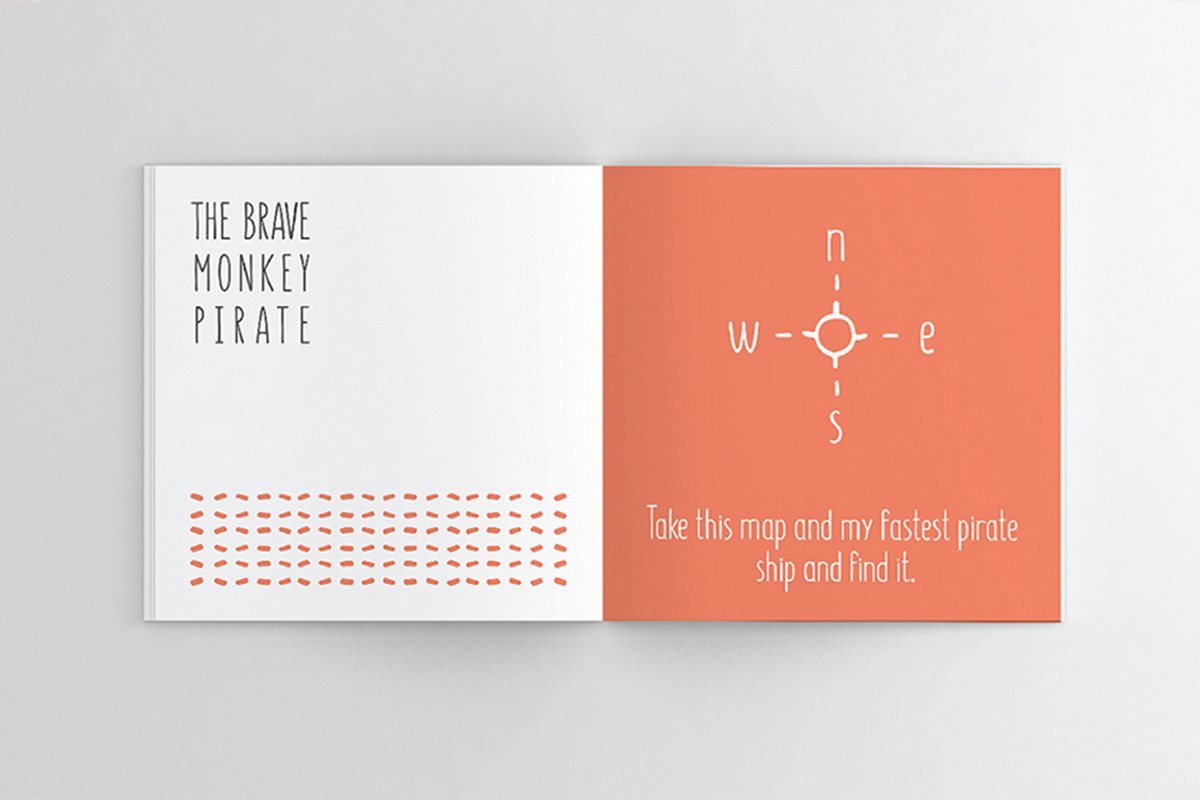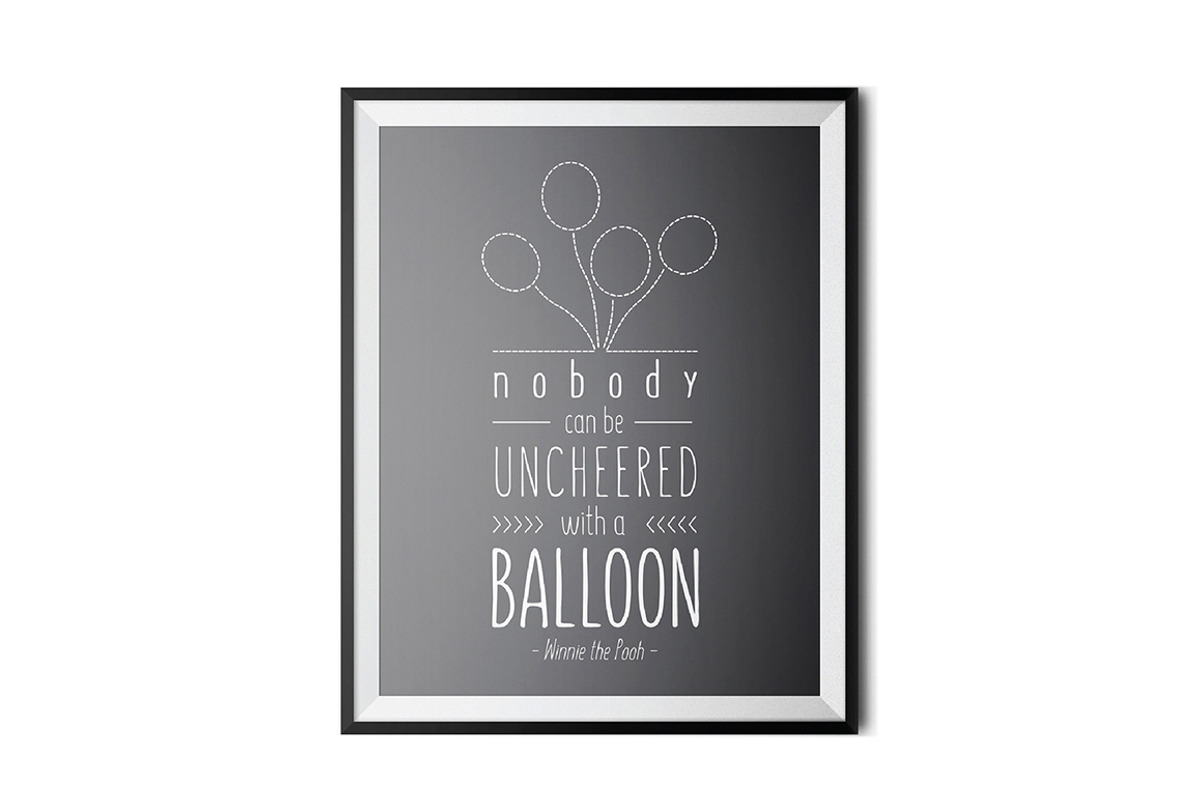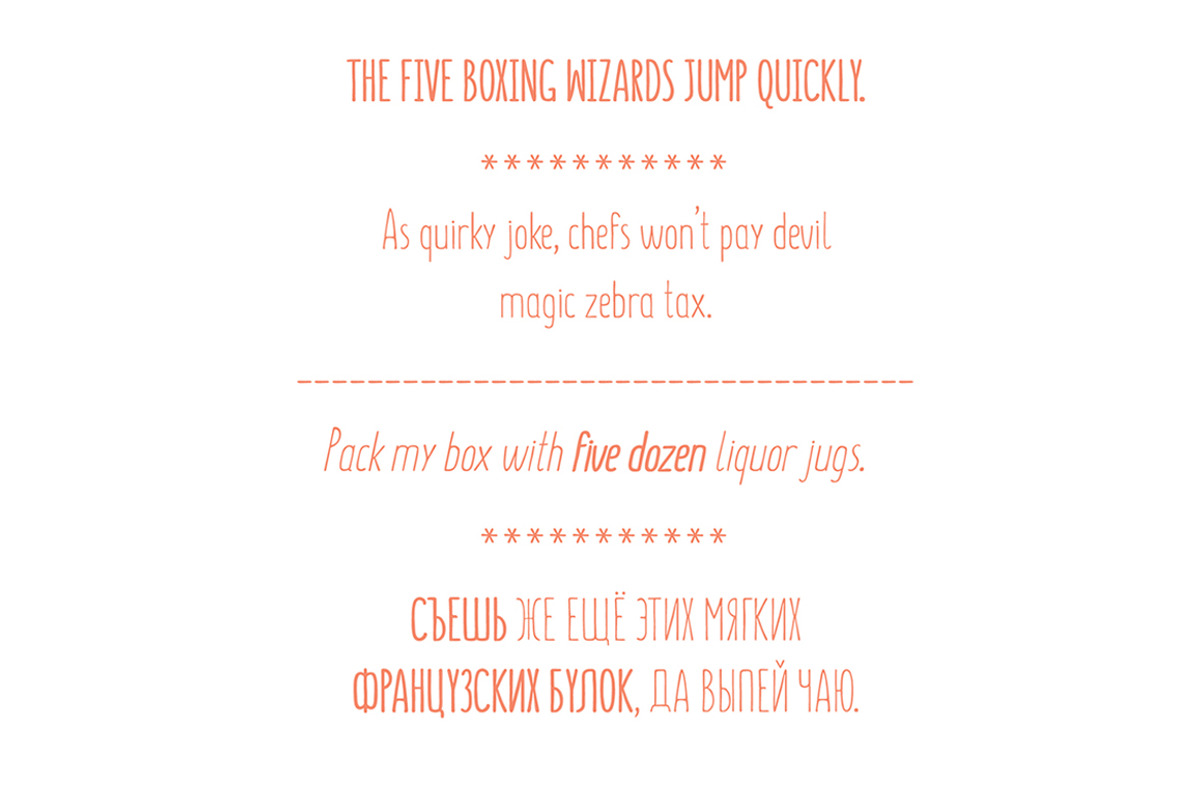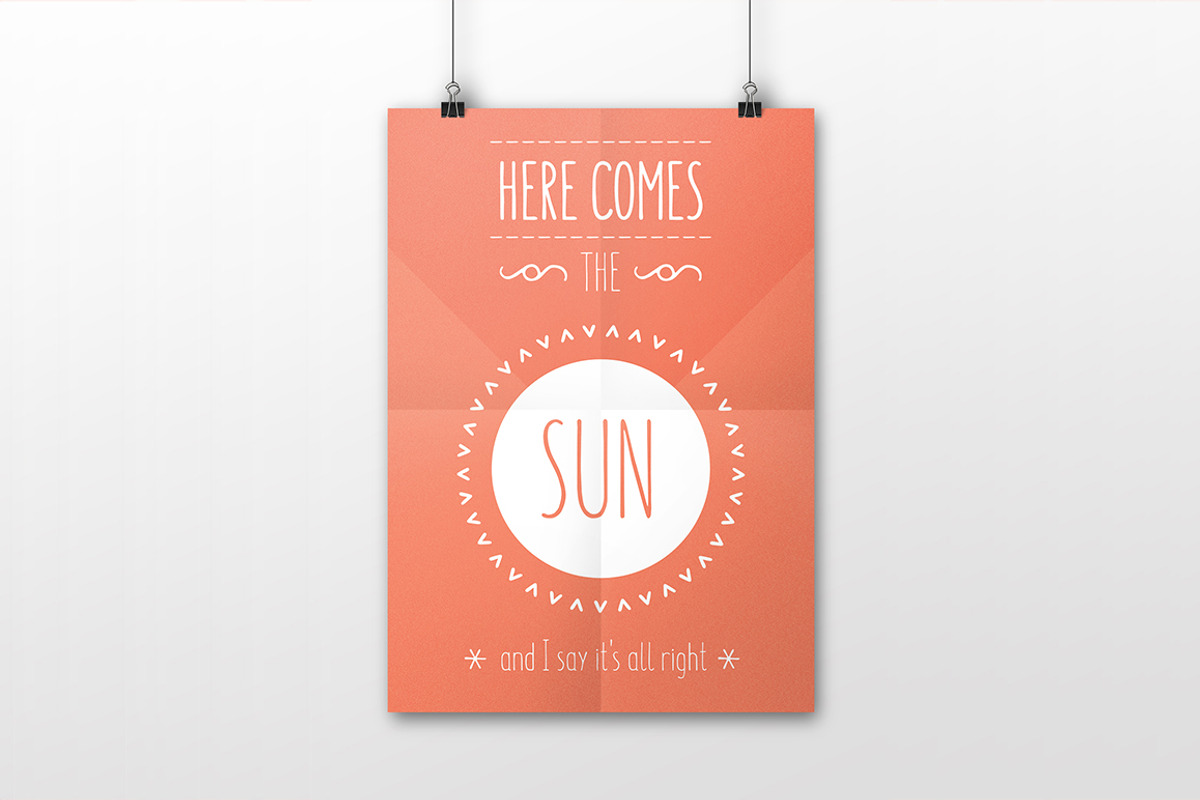
SUNN Pro - Handwriting Font
SUNN Pro - Handwriting Font by Wild Ones is a font selected for branding, posters, packaging, typography.
- SUNN Pro is a Handwriting font, it goes in: Light Light Italic Regular Italic Bold Bold Italic 500 Characters, containing Cyrillic (
Why SUNN Pro - Handwriting Font is worth a look
SUNN Pro - Handwriting Font by Wild Ones fits naturally into Branding, posters, packaging, typography.